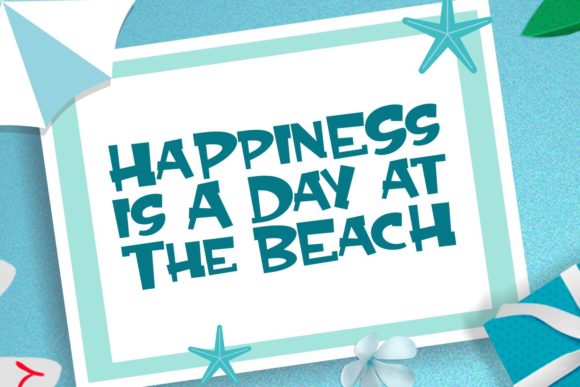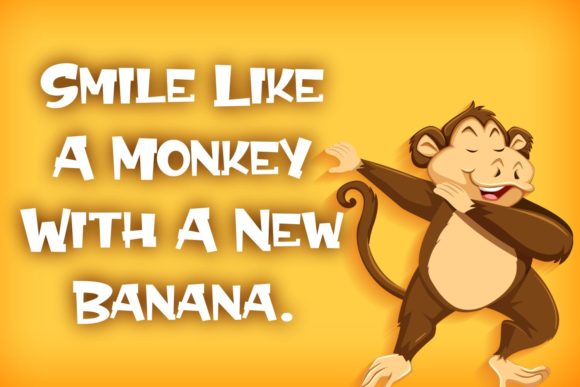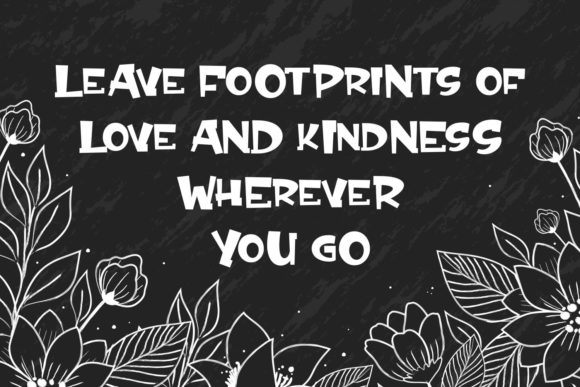
Whatever Will Be Font
About Whatever Will Be Font
Whatever Will Be is a fun and beautiful handwritten font. This stunning font is a stylish homage to classic calligraphy. It features an incredibly classic style, while still keeping a friendly feel. Whatever Will Be is the perfect font for making original and outstanding designs.